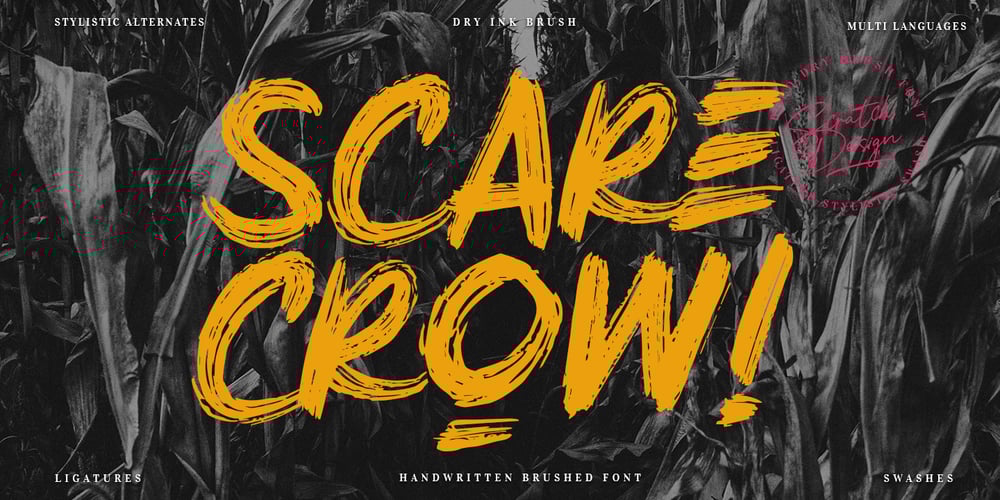
Scarecrow Font Family was designed by Gitayogi Irhandi and published by Scratch Design. Scarecrow contains 1 styles and family package options. Introducing “Scarecrow” handwritten brush font. An authentic dry ink brush touches in every character of this font, the realistic dry ink brush effects will be suitable for any design such as poster band, clothing design, product design, packaging, label design, film/movie title, quote, etc.Scarecrow file downloaded : Multi-languages supports Ligatures Stylistic alternates Swashes and splash I hope you enjoy this font.